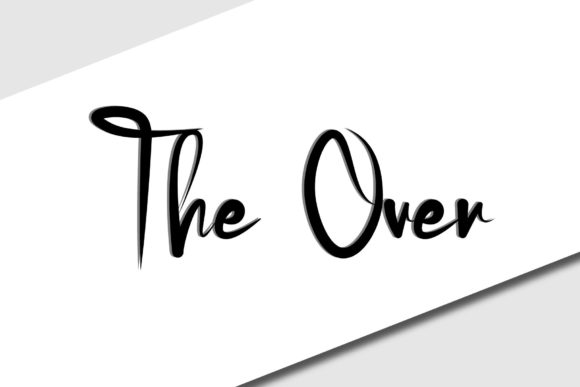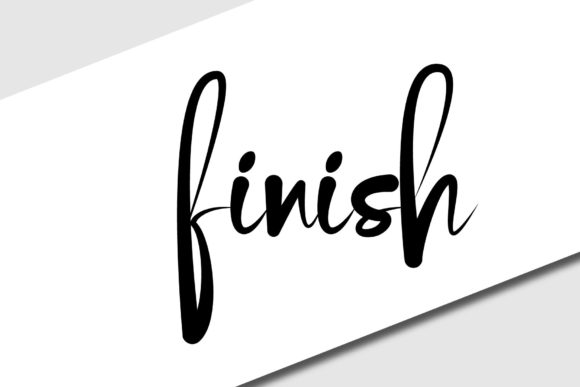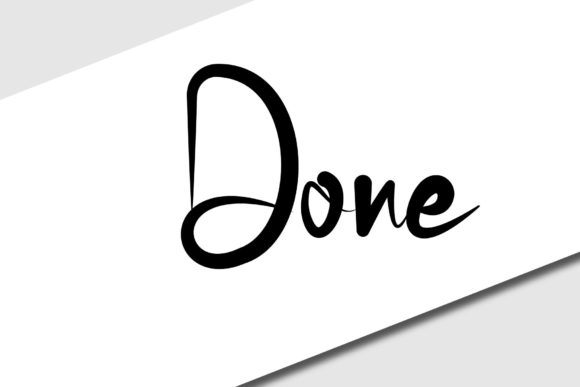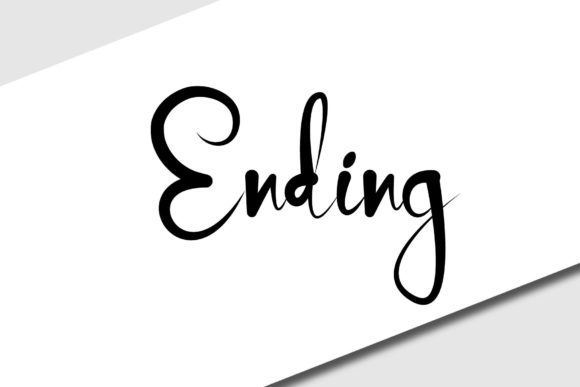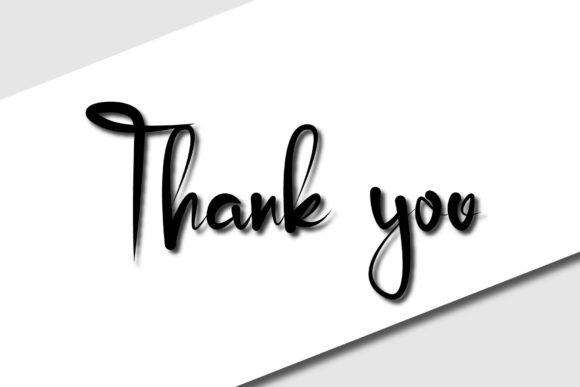
The over Font
About The over Font
The Over is a lovely script font featuring charming, playful characters that seem to dance along the baseline. Add this font to your most creative ideas, and notice how it makes them stand out!